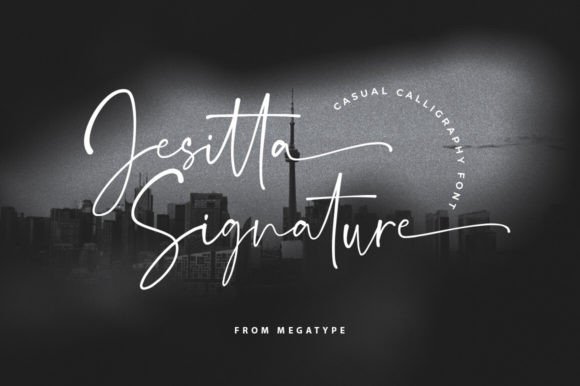
Embrace the art of exquisite penmanship with Jesitta Signature Font, a modern masterpiece that breathes life into your creative endeavors. This elegant script font, meticulously crafted by Megatype, captures the essence of handwritten beauty, transforming your designs into captivating works of art.
Journey through a world of endless possibilities with Jesitta Signature, a font that dances across the page with its magical ink strokes. Its graceful curves and delicate flourishes evoke a sense of timeless elegance, perfect for capturing the magic of special occasions.
Picture your wedding invitations adorned with the flowing script of Jesitta Signature, each letter a testament to the love and joy of your special day. Enchant your audience with logos and branding that exude sophistication and charm. Let your watermarks whisper a tale of creativity and artistry.
Jesitta Signature's versatility extends beyond the traditional realms of design. Its enchanting touch adds a touch of elegance to product design, labels, and packaging, transforming everyday objects into works of art. Unleash your imagination and explore uncharted creative territories with Jesitta Signature as your trusted companion.
Discover the transformative power of Jesitta Signature and elevate your designs to new heights of beauty and elegance. Experience the joy of creating with a font that speaks to your heart and soul, leaving an unforgettable impression on all who encounter it.